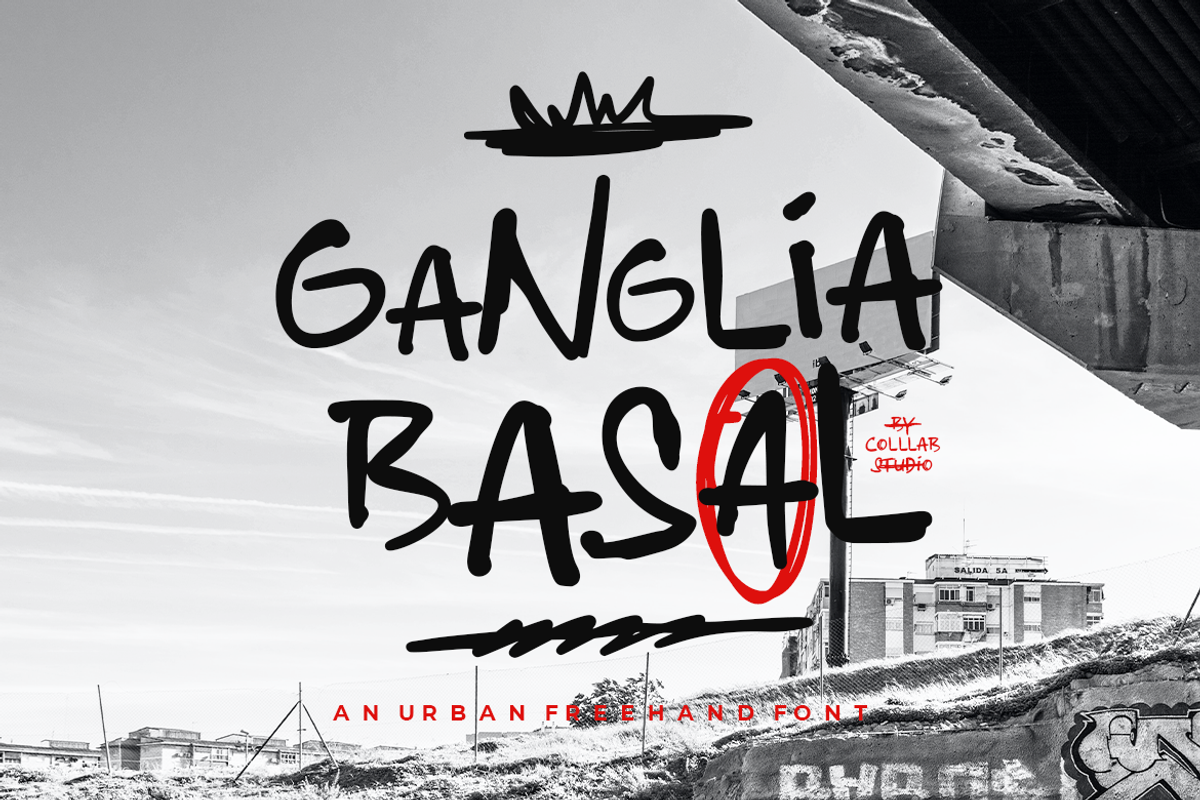
Ganglia Basal | An Urban Font Free Download
Ganglia Basal | An Urban Font Free Download is a bold, edgy typeface inspired by street culture, graffiti art, and modern cityscapes. With its sharp angles, raw lines, and rebellious attitude, this font is perfect for album covers, streetwear branding, posters, skate culture graphics, and urban-themed social media content.
Ganglia Basal brings a gritty, underground vibe to your designs while remaining legible and impactful. Whether you're creating a music promo, a zine layout, or bold logo work, this font adds energy and authenticity with every letter.